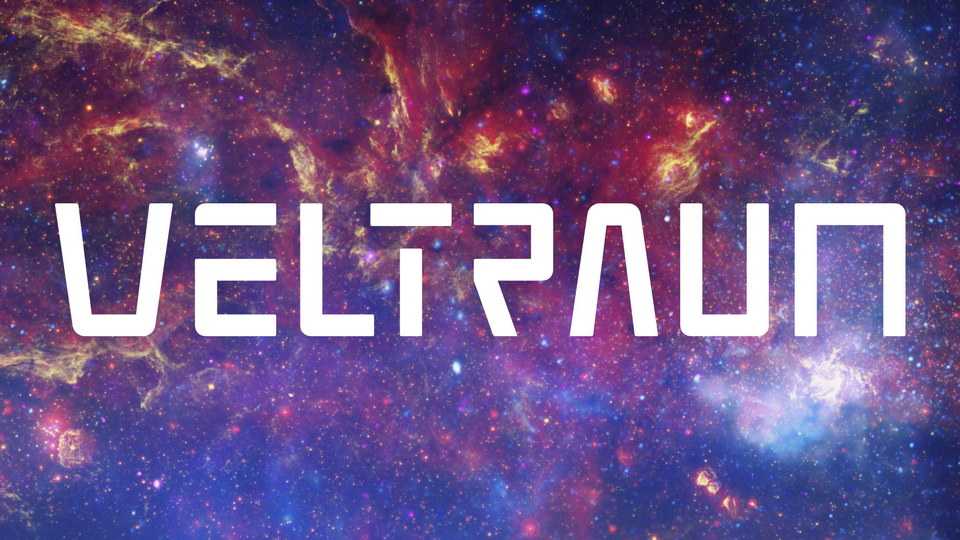
Download Weltraum font, an uppercase only space typeface. Weltraum has a minimalist and futuristic approach, but pays special attention to functionality and readability.
Designer: Johannes Pistorius